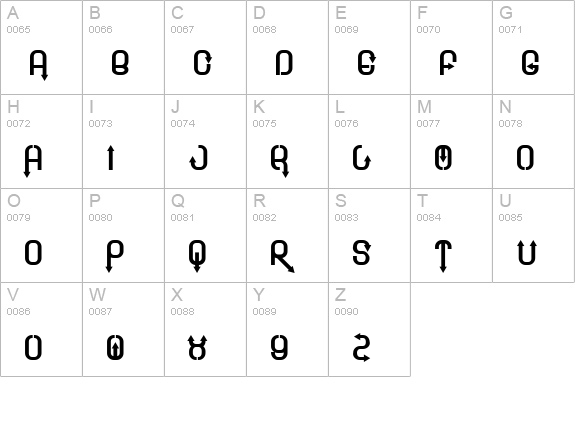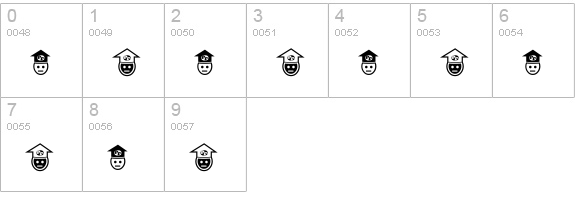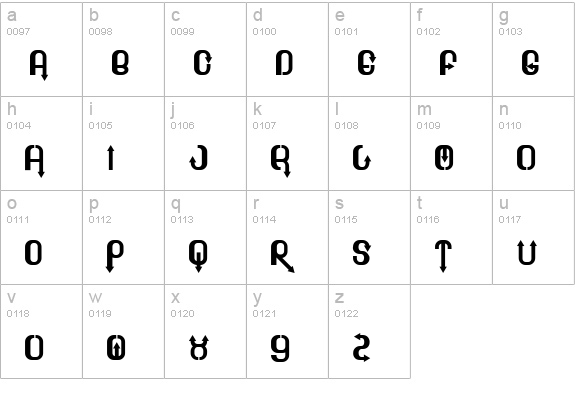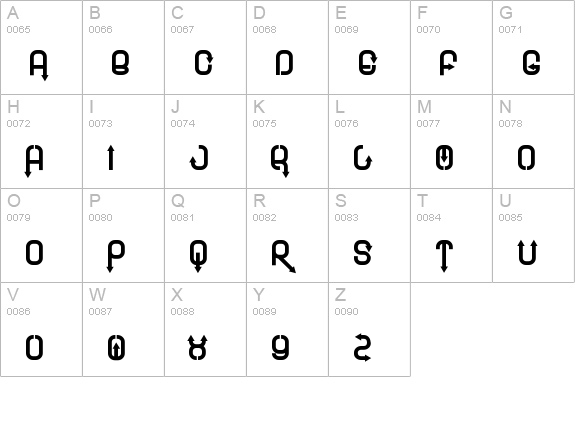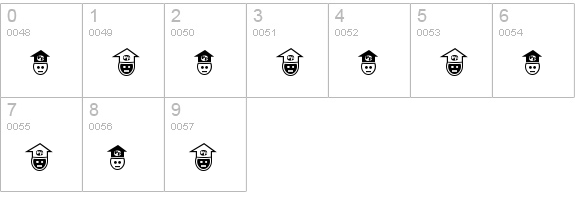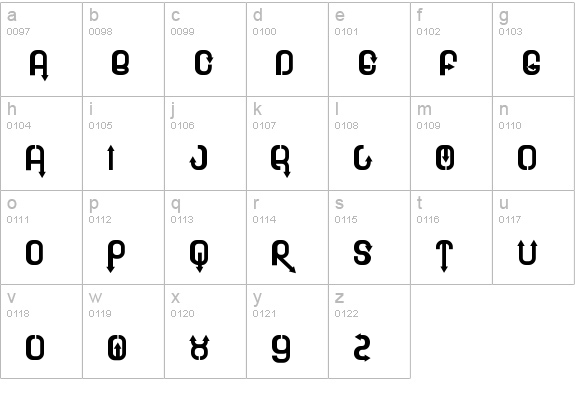
Blee Font Details
Introducing Blee font, a stunning display typeface that exudes elegance and creativity. With its unique and stylish design, Blee font is perfect for a wide range of design projects, from branding to packaging and beyond. This versatile font features a sleek and modern look that is sure to make your text stand out. What makes Blee font even more appealing is that it is completely free to download at FontsMarket.com. That's right, you can enhance your projects with this beautiful font without having to spend a dime. So why wait? Download Blee font today and start creating eye-catching designs that will leave a lasting impression.